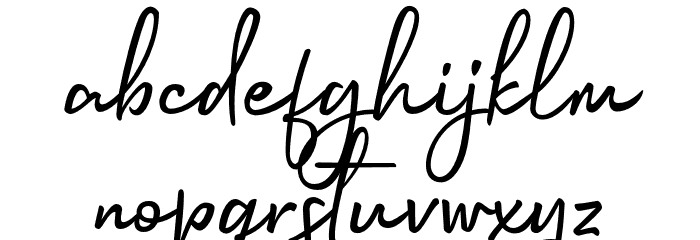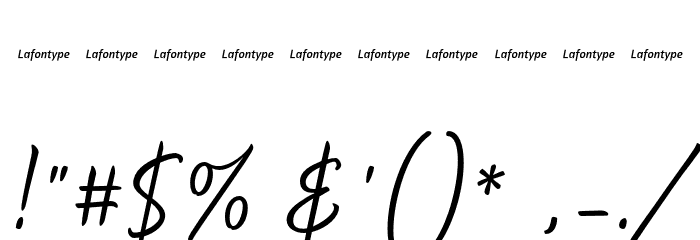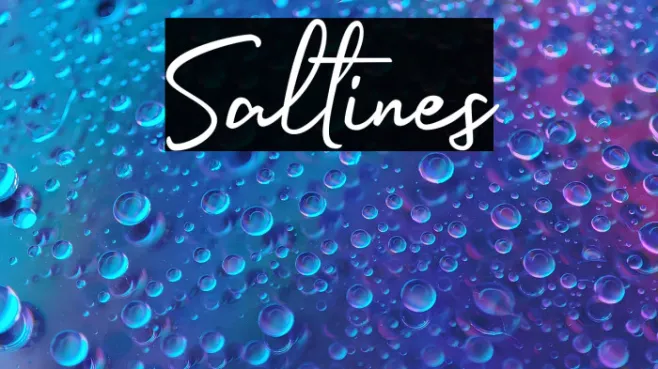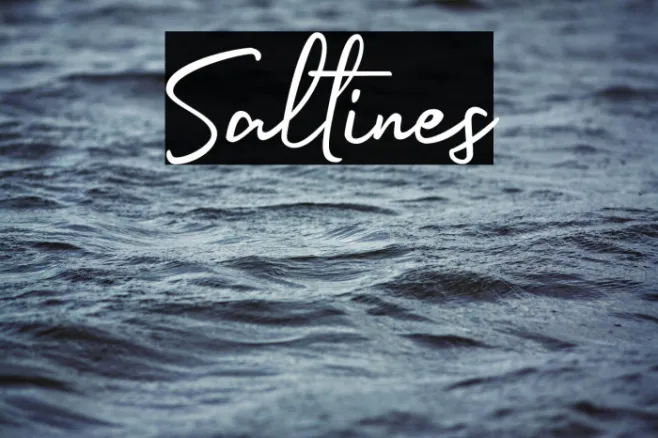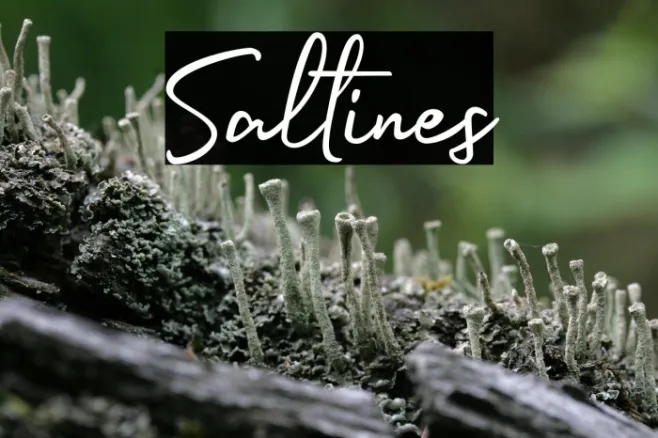
Saltines Font
This font features a dynamic and fluid handwritten style, characterized by its smooth, flowing lines and slight slant. The uppercase letters are bold and expressive, with a playful yet elegant touch, while the lowercase letters maintain a consistent rhythm and balance. The strokes vary in thickness, adding a sense of movement and energy. The font includes a full set of numerals and a variety of punctuation marks, each designed with the same lively and informal aesthetic. It's perfect for projects that require a personal, human touch, such as invitations, greeting cards, or branding materials that aim to convey warmth and approachability.
A lively, handwritten font with fluid strokes and a playful elegance.
- Font: Saltines
- Proposed Projects: Ideal for invitations, greeting cards, personal branding, and any project needing a warm, human touch.
- Use Case: Logos, Invitations, Greeting Cards